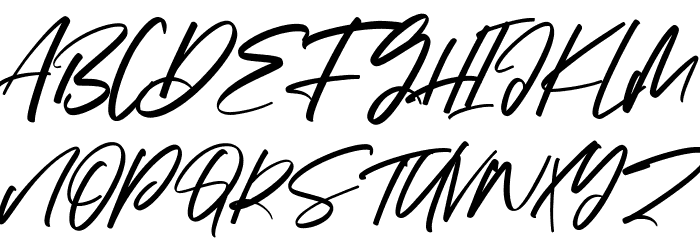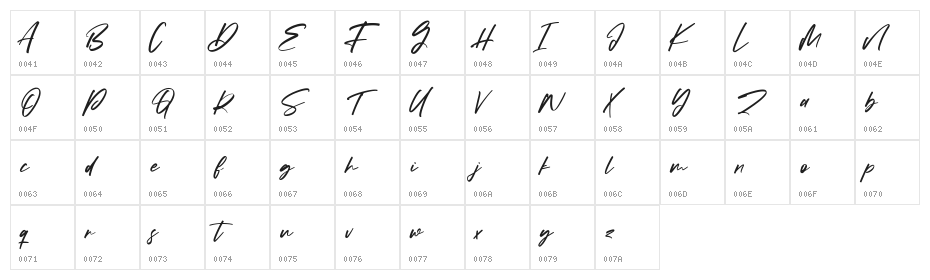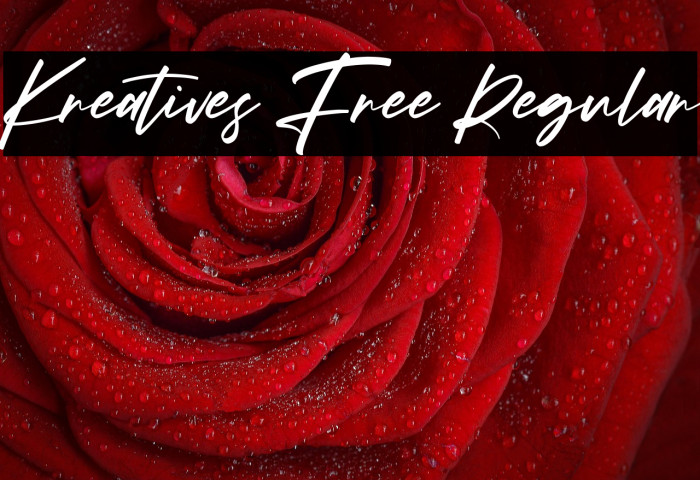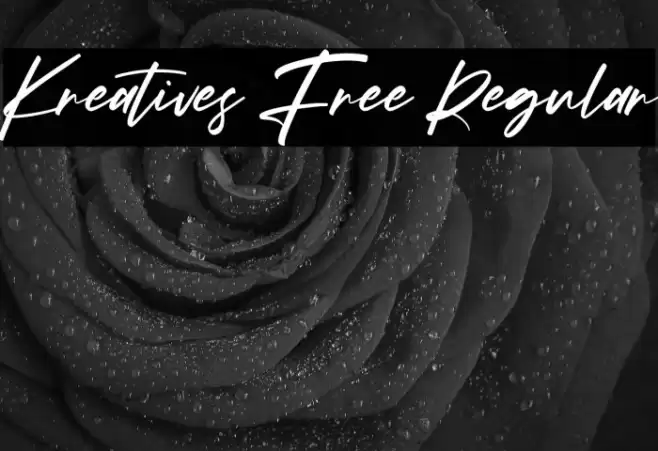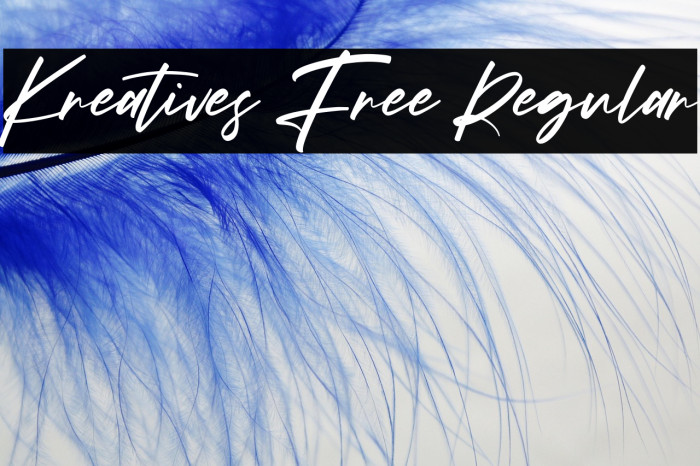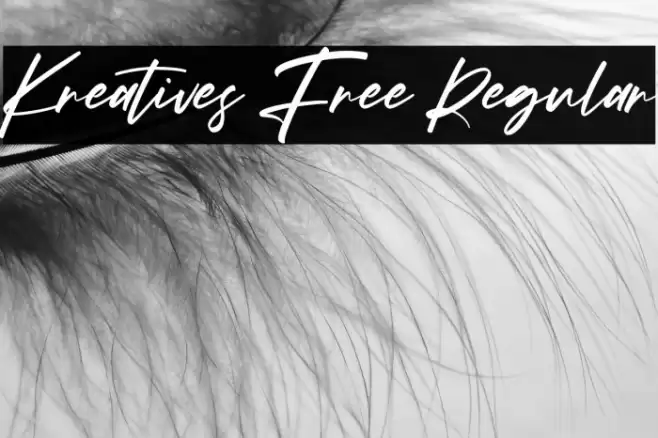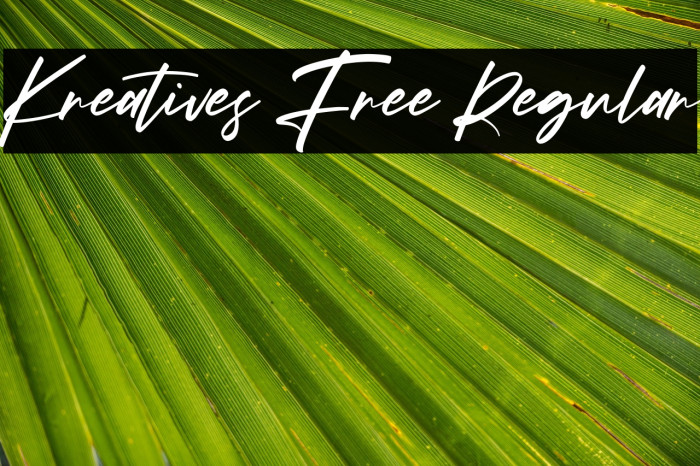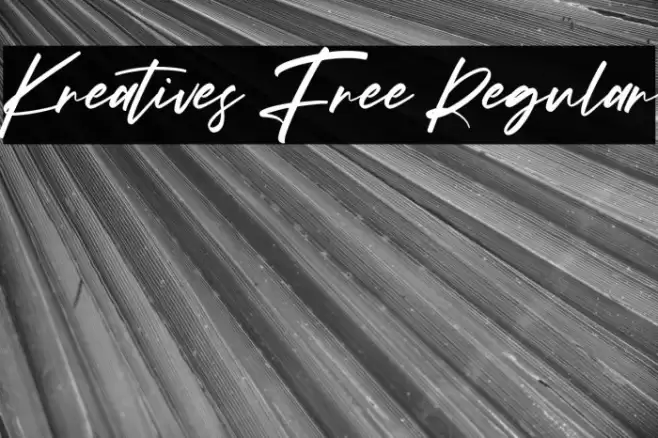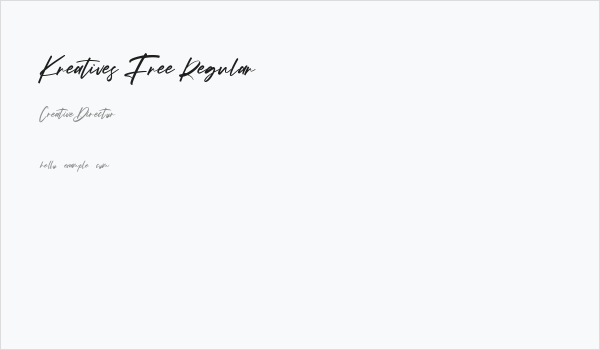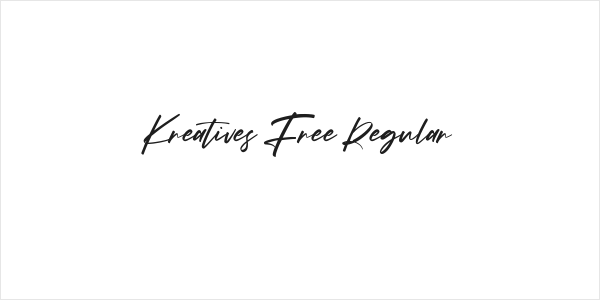
Kreatives Free Regular Font
Kreatives Free Regular Description
This font exudes a dynamic and energetic vibe with its bold, flowing script style. The letters are interconnected, creating a sense of movement and fluidity. The strokes are thick and expressive, with a slight slant that adds to the handwritten feel. The uppercase and lowercase letters maintain a consistent style, with the uppercase being more pronounced and the lowercase offering a more subtle touch. The font's overall appearance is both modern and artistic, making it suitable for creative projects that require a personal touch.
| Proposed Projects | Ideal for branding, invitations, greeting cards, and creative design projects that require a personal and artistic touch. |